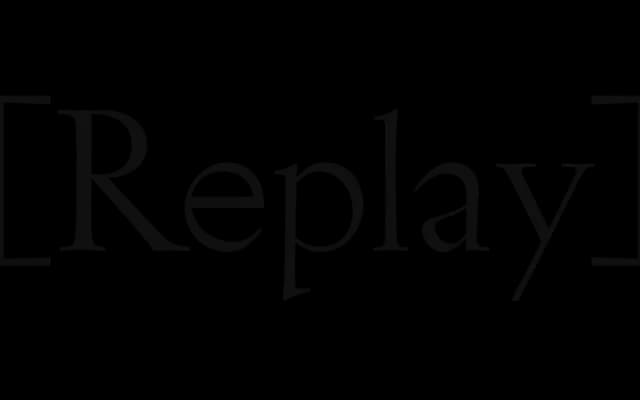
Originally a one-off typeface for exhibition labels, this calligraphic display face draws on classical sign-writer lettering guides and treats inconsistency as a feature.
Conceived for wall texts and object labels in an exhibition context, the design reduces straight lines to retain the organic rhythm of hand-drawn sign-writing. Twelve stylistic alternates and an italic were added when the typeface moved from private distribution among exhibition contributors to general release. Its deliberate embrace of imperfection and calligraphic irregularity makes it a considered choice for editorial and cultural work where mechanical precision would feel wrong.
Rooted in sign-writer lettering guides, the typeface reduces straight lines to preserve an organic, calligraphic quality with deliberate inconsistencies, placing it firmly in calligraphic display territory.